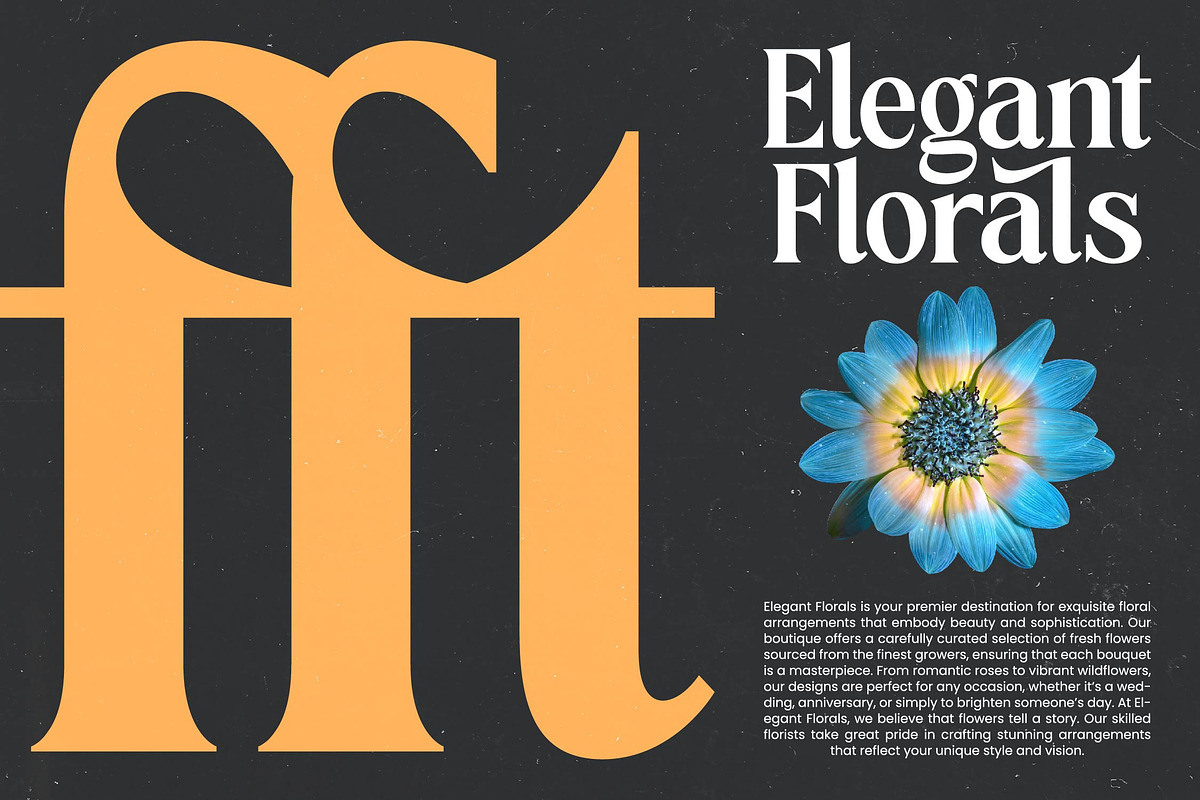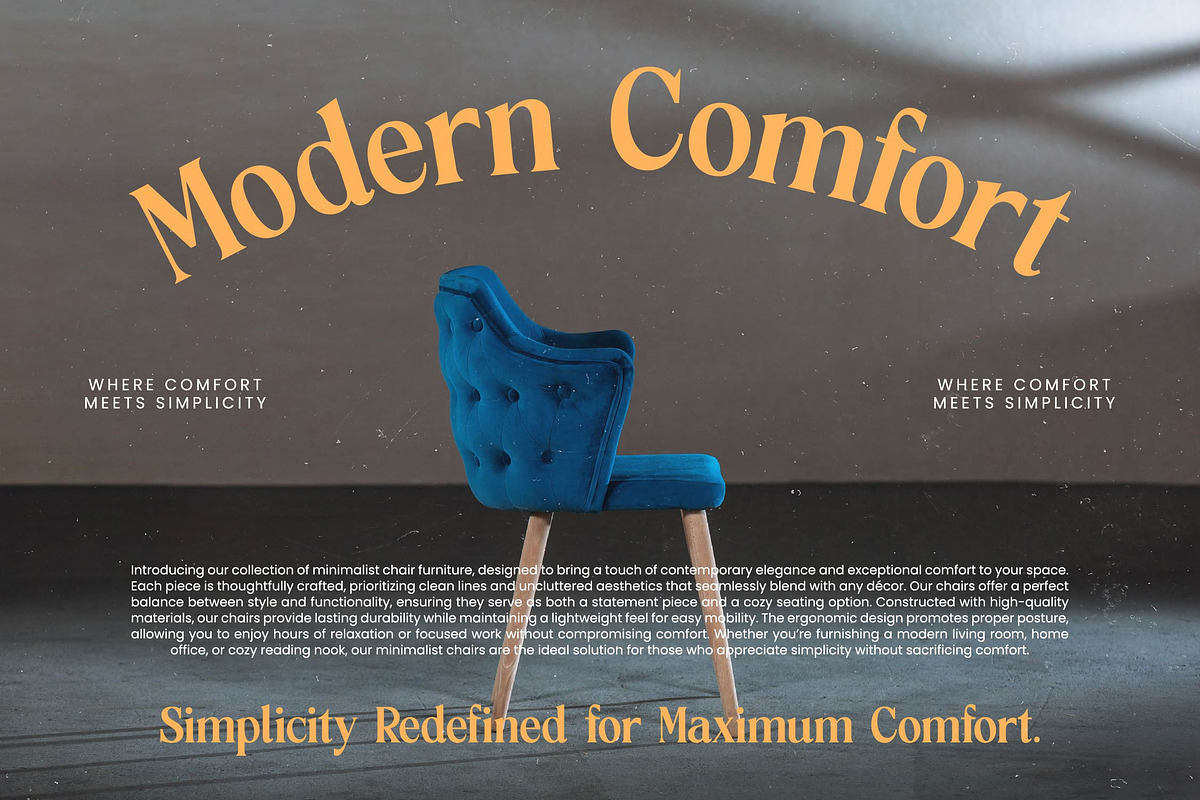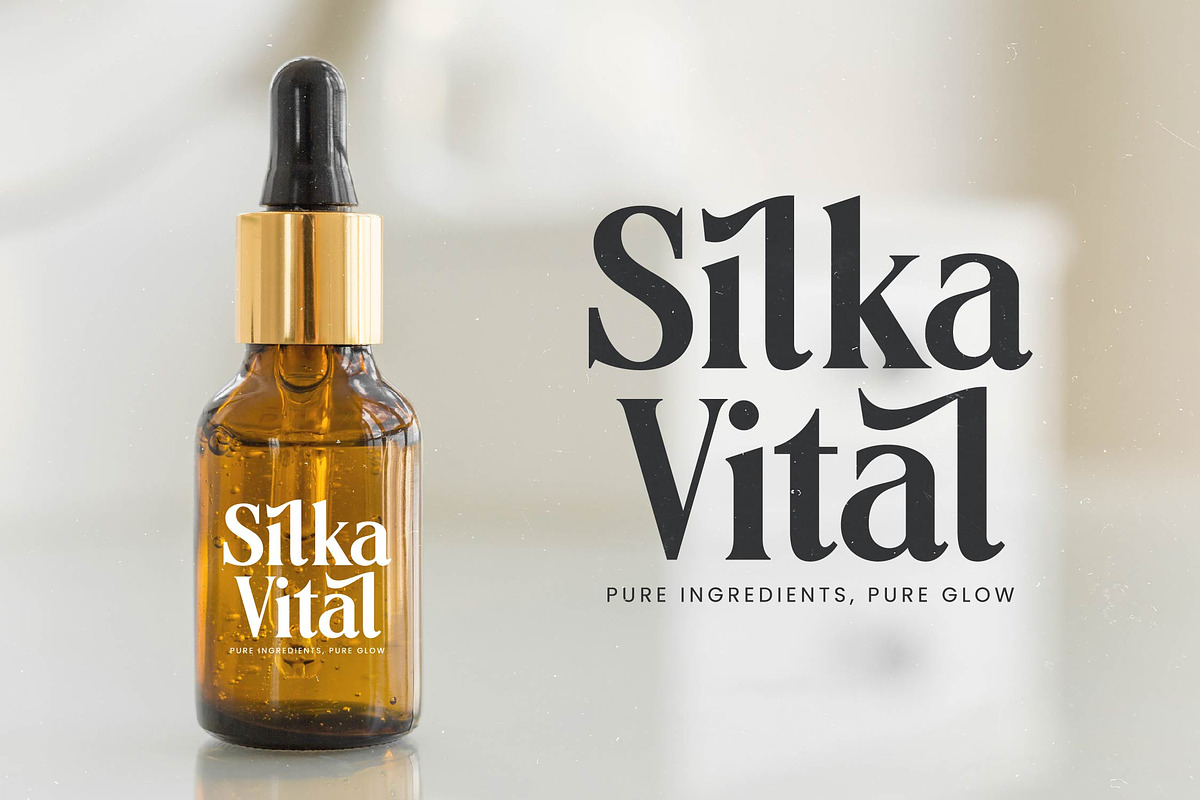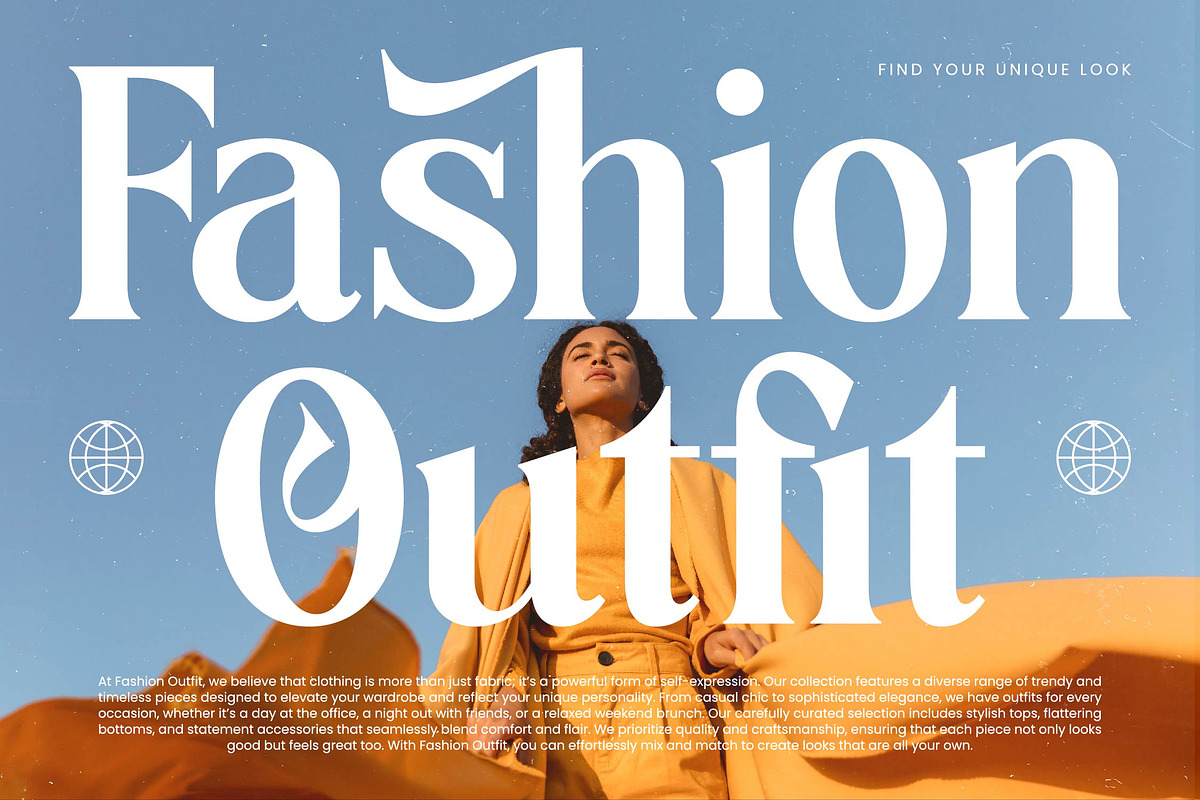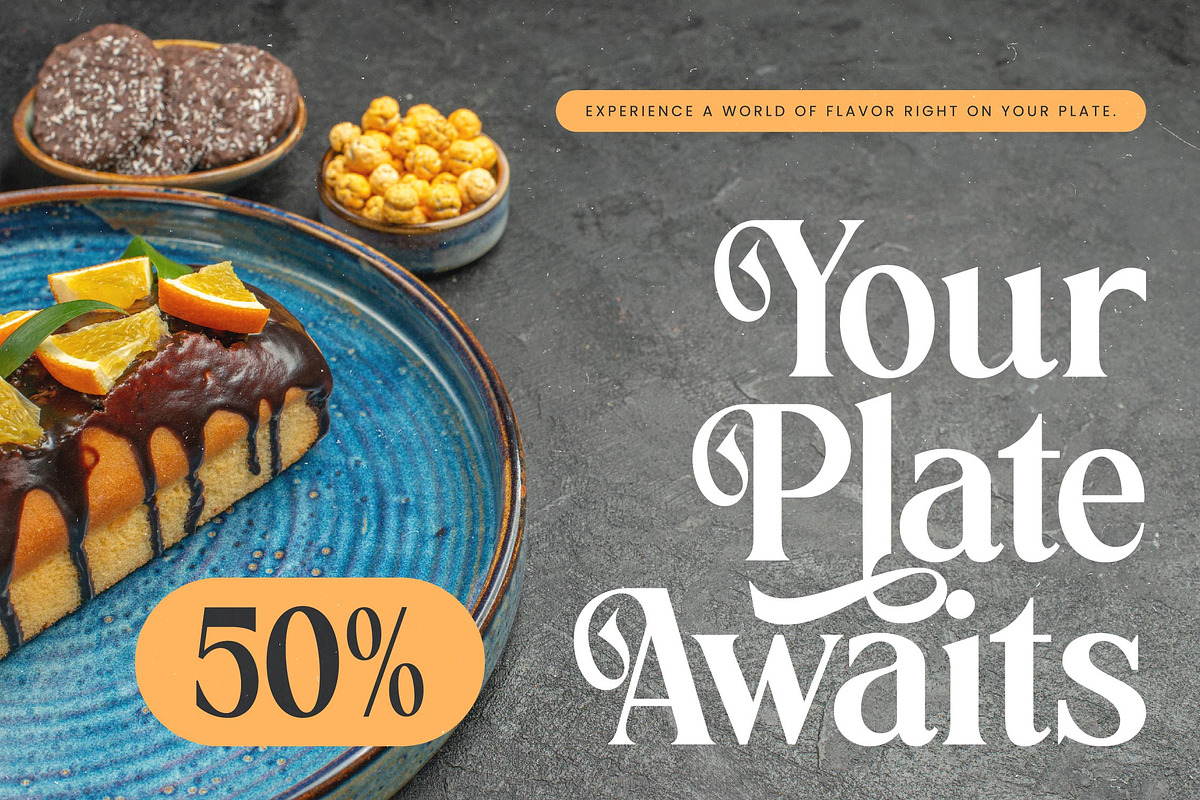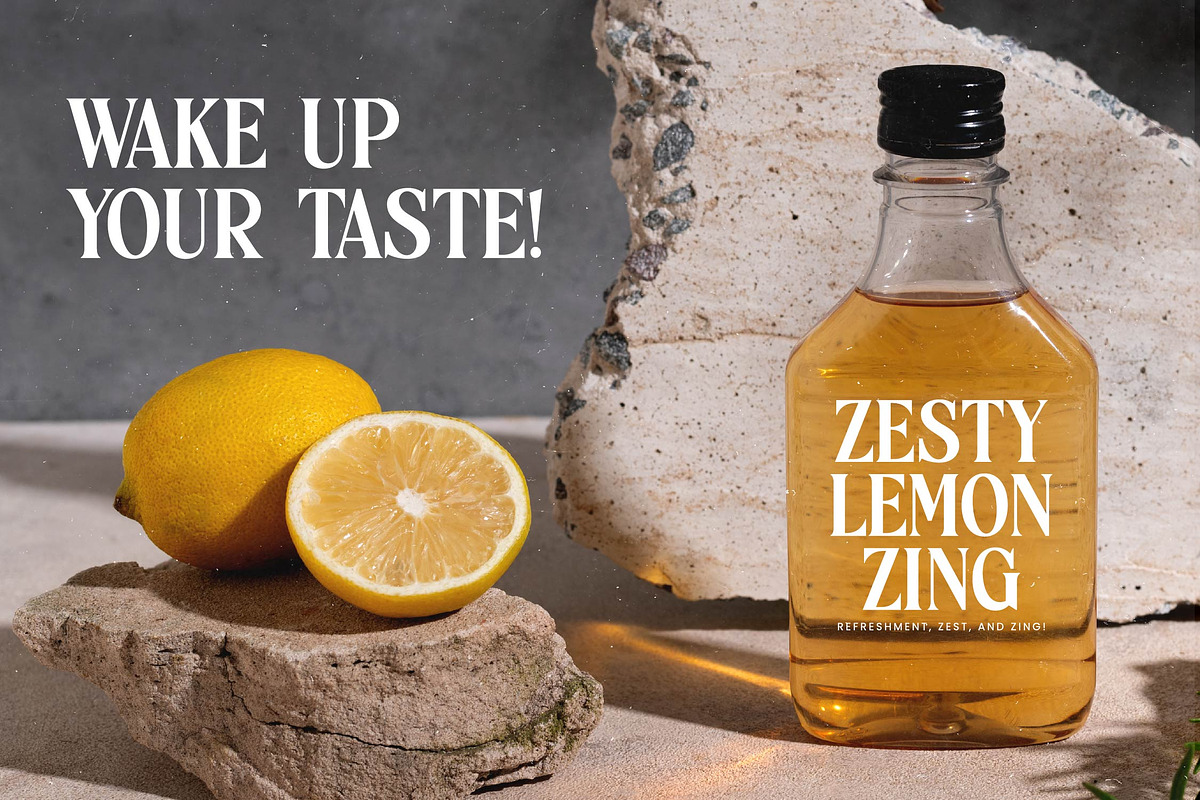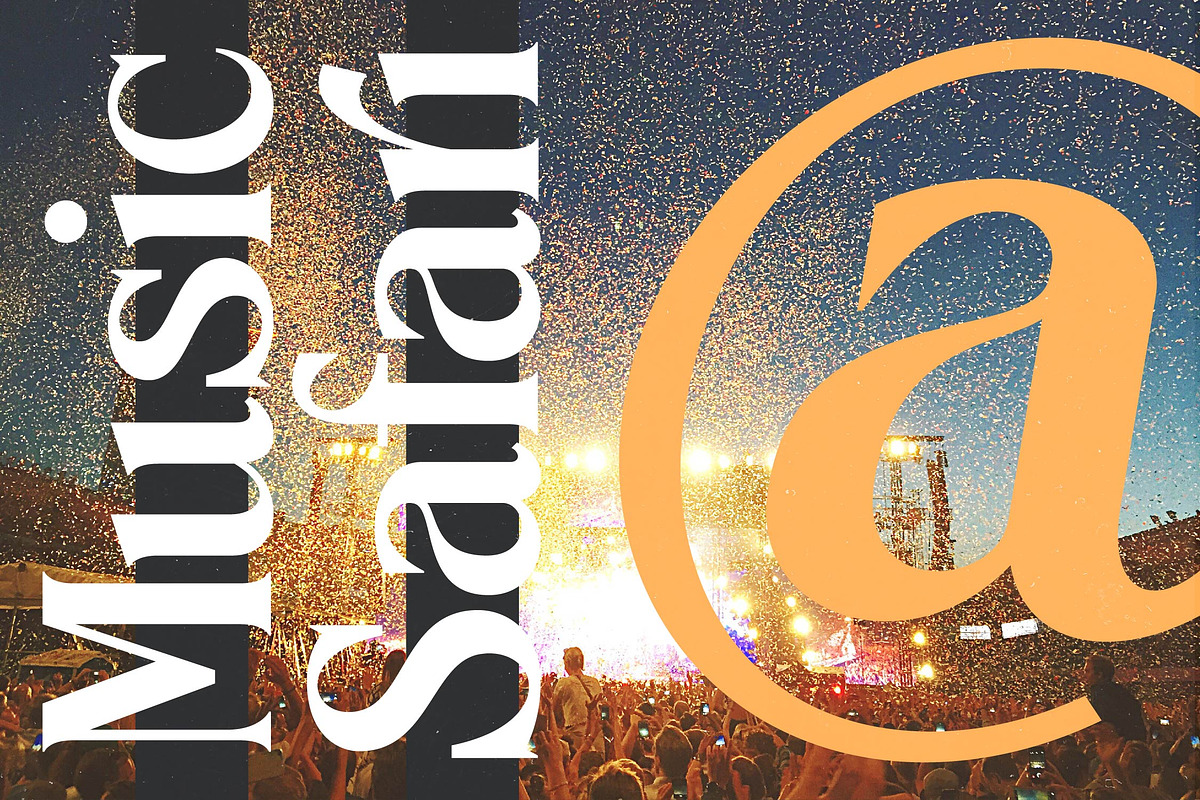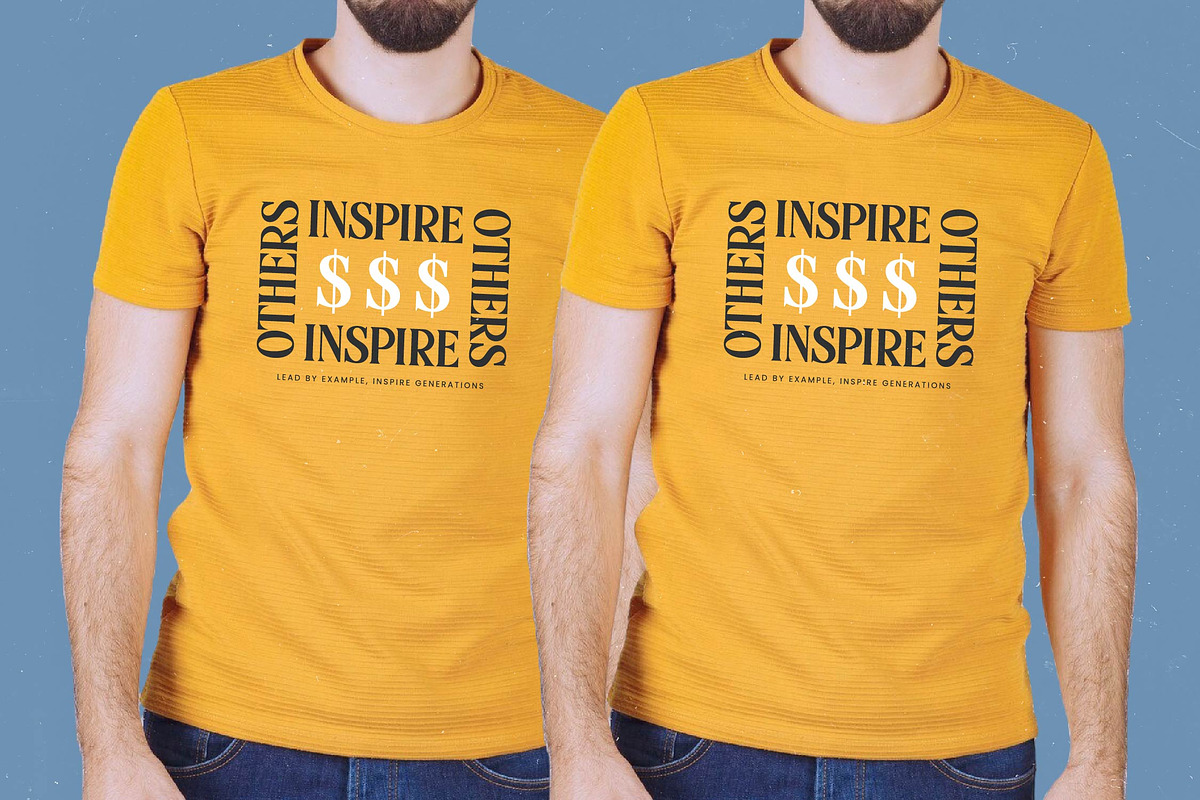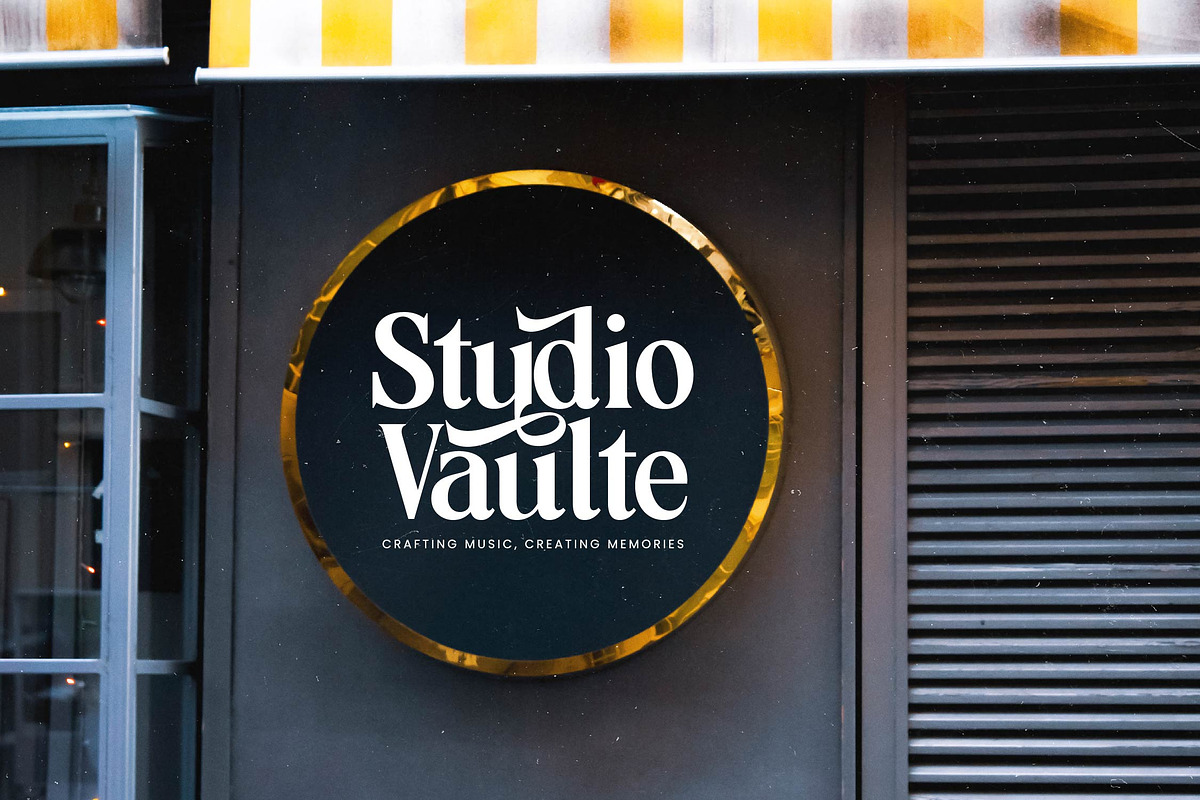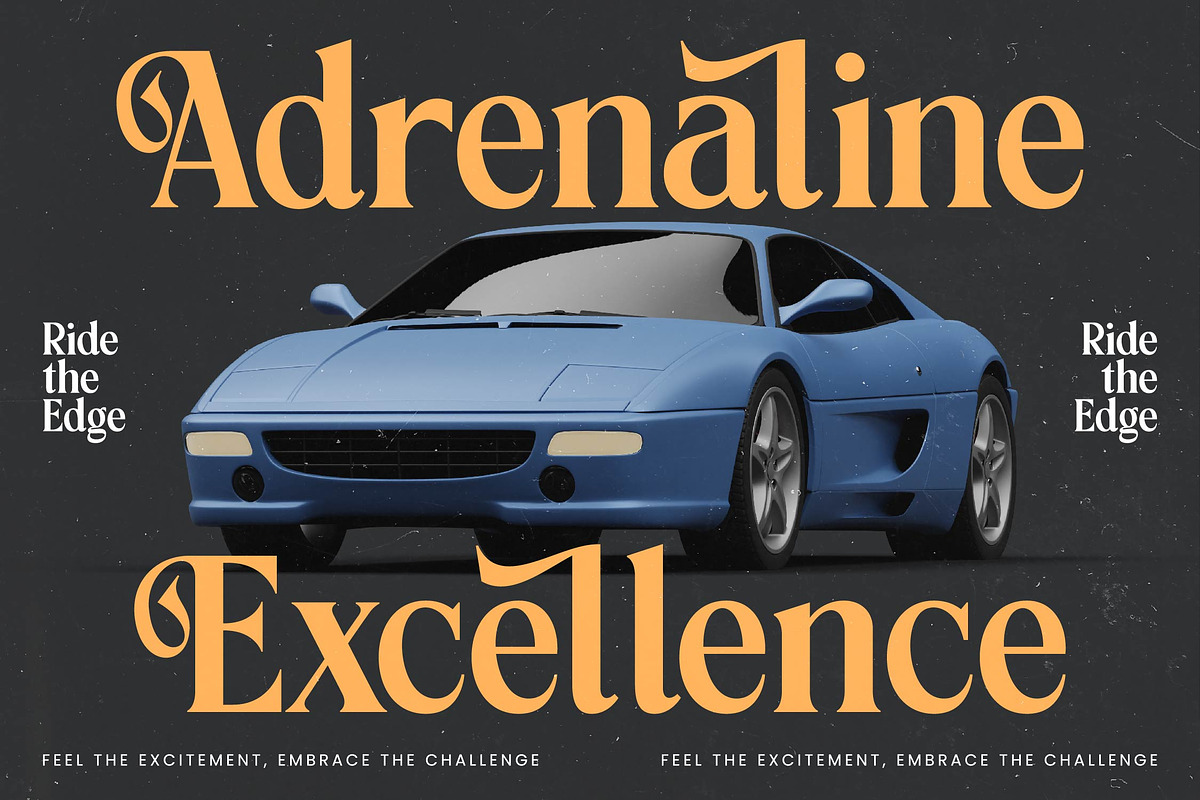
Vitoria Bold Tall Serif Display
Vitoria Bold Tall is more than just a typeface; it is a visual statement that demands attention with its towering elegance and sophisticated curves. This font invites designers to explore the intersection of classical beauty and contemporary boldness, transforming any canvas into a masterpiece of communication.
Inspired by the golden era of editorial design and the refined aesthetics of mid-century high-fashion magazines, this typeface captures a nostalgic yet forward-thinking spirit. Its elongated forms and delicate terminals evoke a sense of timeless craftsmanship that feels both established and daringly original.
Elevate your projects with a modern serif display that embodies luxury typography through its high-contrast serif details and sleek, vertical proportions. Designed for maximum branding impact, this editorial font provides a perfect balance of power and grace, ensuring your message is delivered with unmistakable prestige.
Aligning perfectly with the current modern serif trend, this typeface meets the demand for character-driven typography that breaks away from the mundane. It stands at the forefront of editorial display fonts, offering a unique silhouette that resonates with today’s aesthetic sensibilities and high-end design standards.
This versatile family is an essential tool for high-end logo design and comprehensive branding systems that require a touch of class. From sophisticated packaging and avant-garde fashion layouts to romantic wedding stationery and premium editorial spreads, it adapts seamlessly to various high-visibility applications.
This comprehensive package includes an extensive set of 21 ligatures and 45 alternates to provide endless creative flexibility. With a full range of swashes, multilingual support, and over 200 international characters, it ensures your creative vision is never limited by technical boundaries.